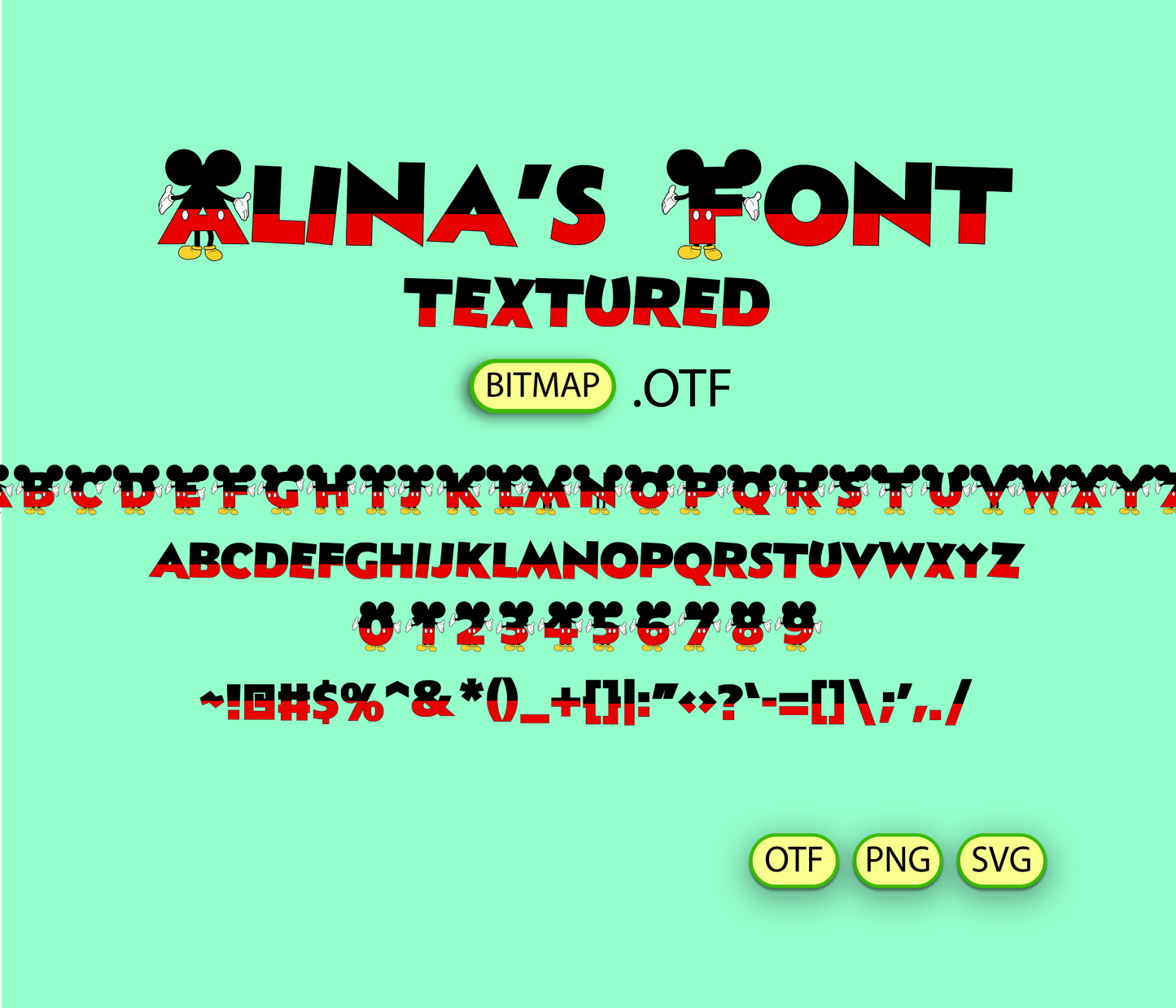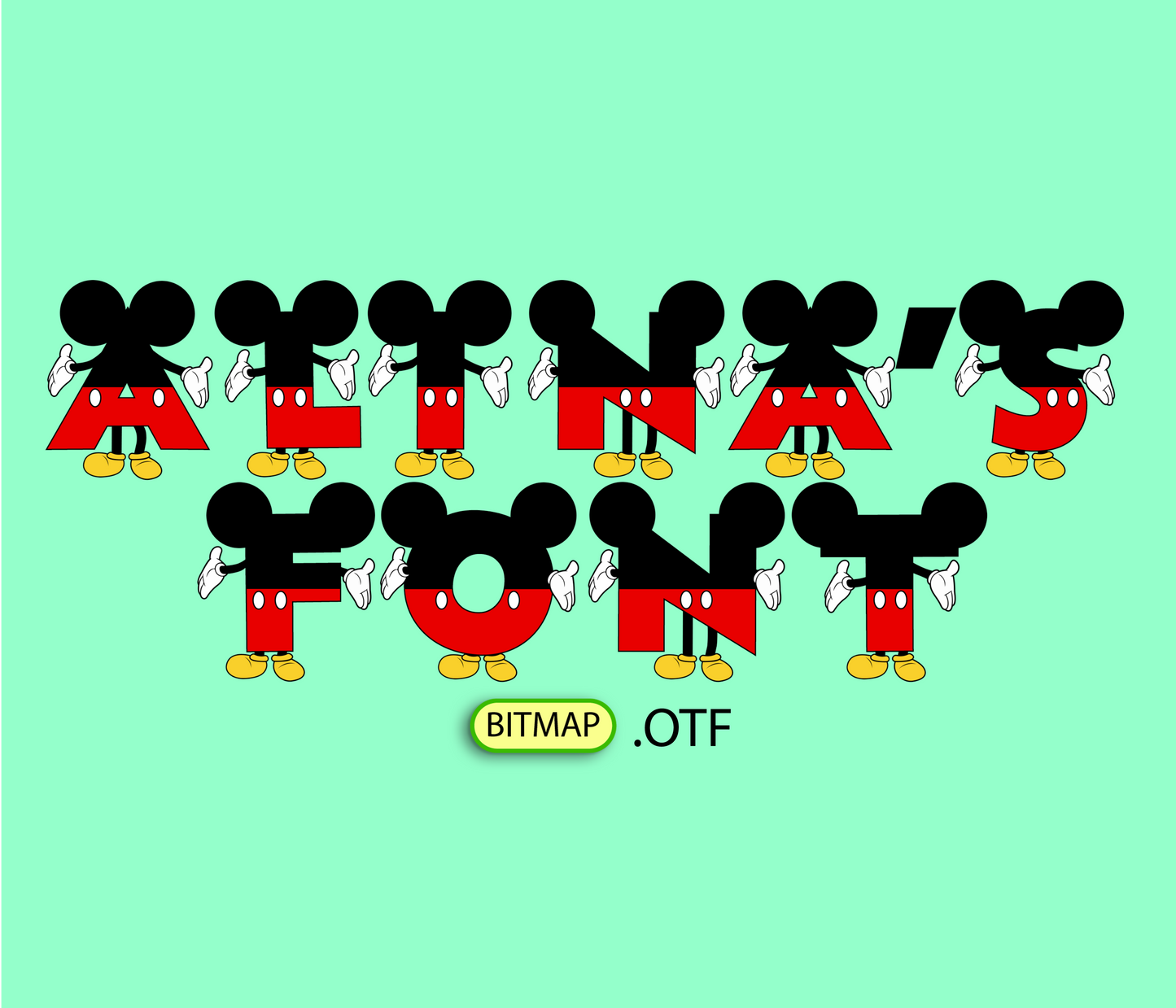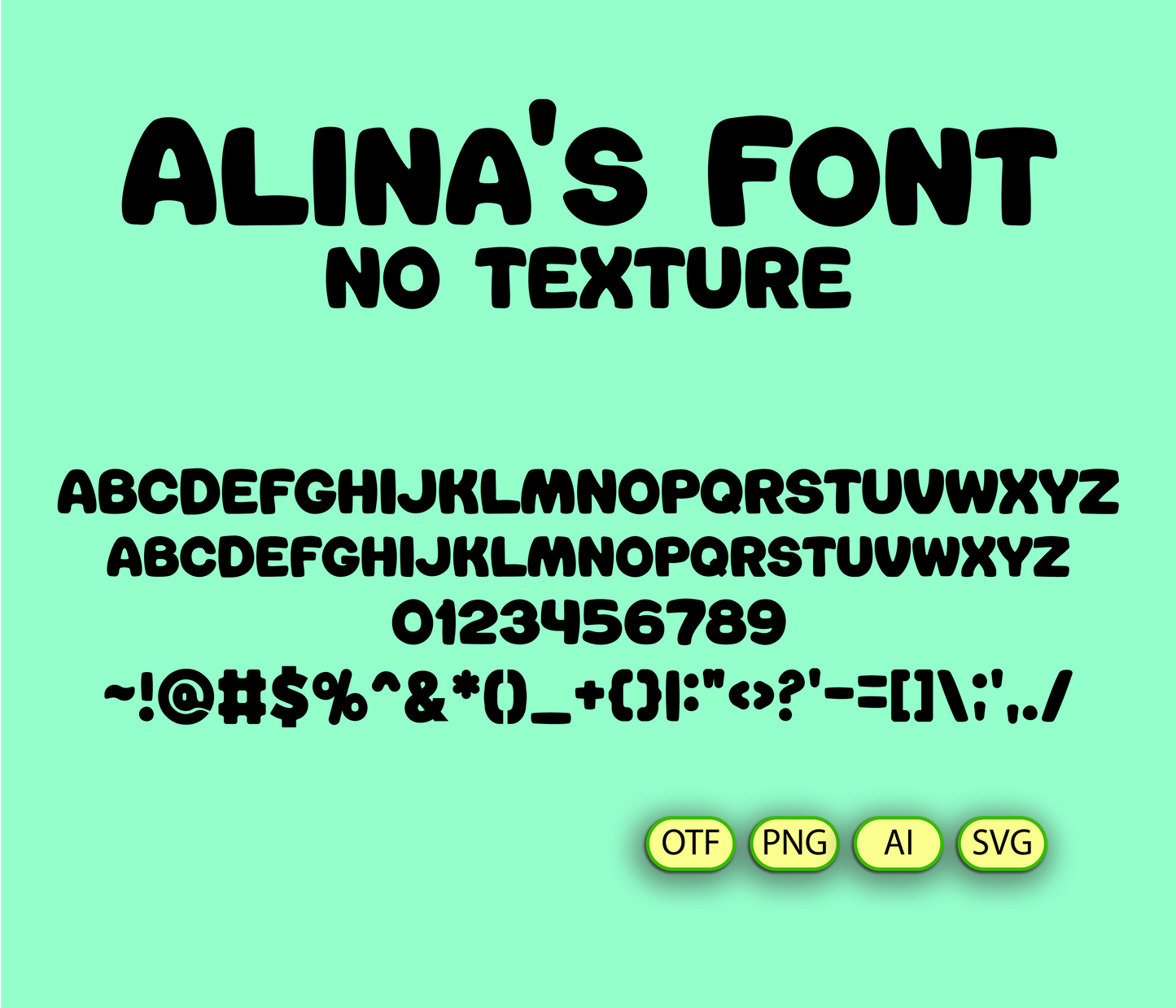
Cheerful Mouse Pattern Font
Cheerful Mouse Font Textured Classic Adventure Style
Step into the magical world of timeless adventures and wholesome fun with our Cheerful Mouse font, capturing the essence of classic animation and joyful escapades. Perfect for family events, animation enthusiasts, nostalgic content creators, and creative professionals, this font brings the optimistic, playful spirit of beloved cartoon adventures to your projects. Create delightful invitations, retro-themed merchandise, or digital content with the warm, cheerful energy of classic animation tales.
Our Cheerful Mouse font features rounded, friendly strokes and classic characters reflecting the timeless yet vibrant aesthetic of golden age animation scenarios. Ideal for:
Our Cheerful Mouse font includes textured and non-textured variants, ensuring compatibility with all software, including Canva. This feature allows easy incorporation into designs for users of all skill levels.